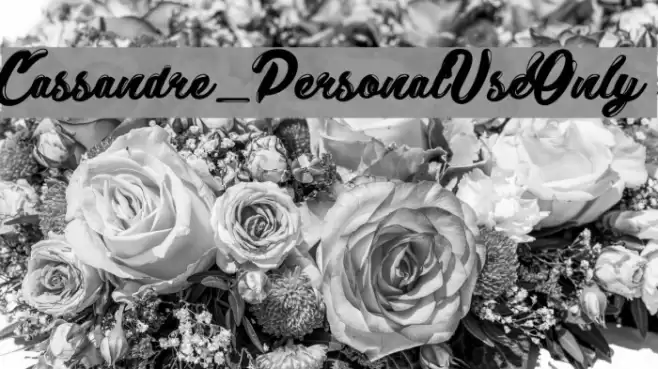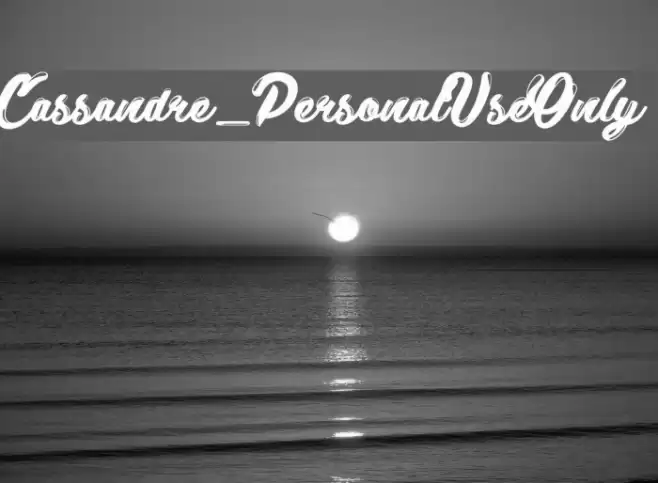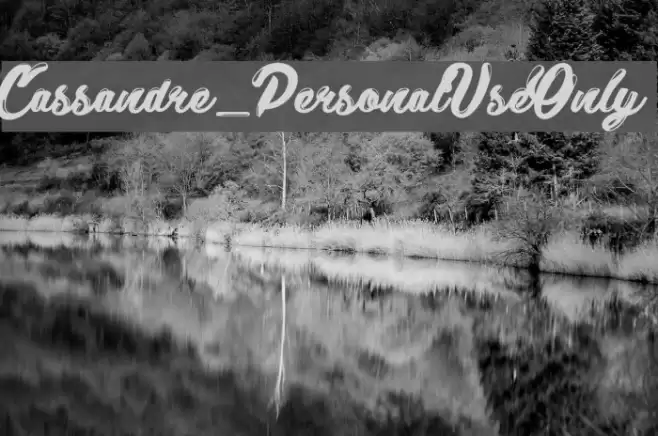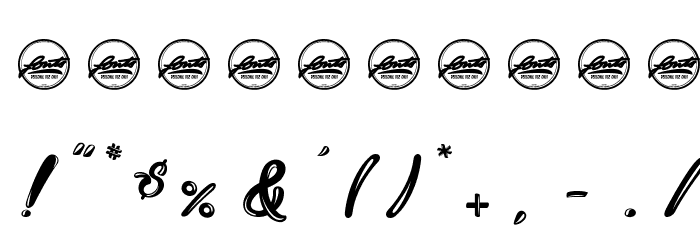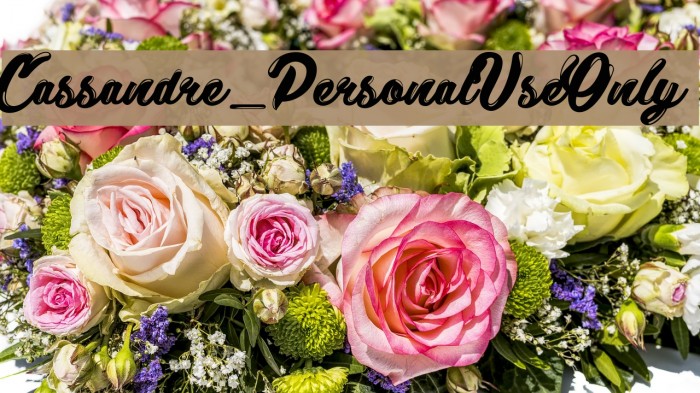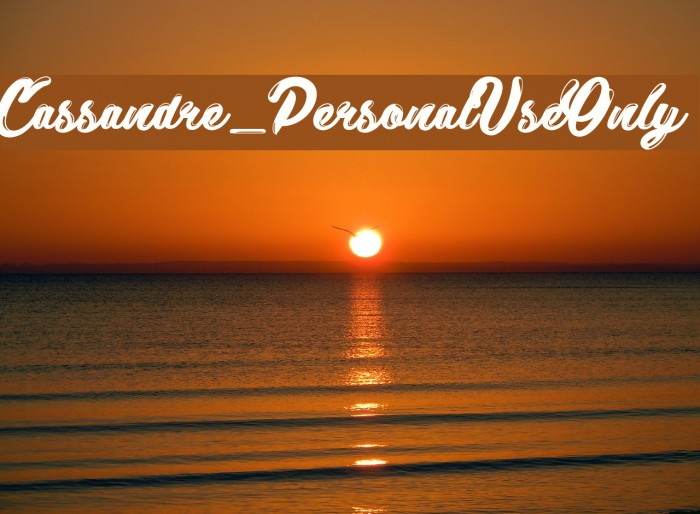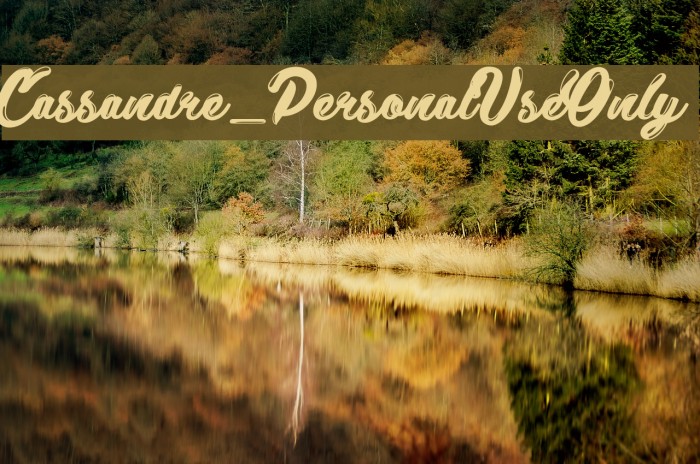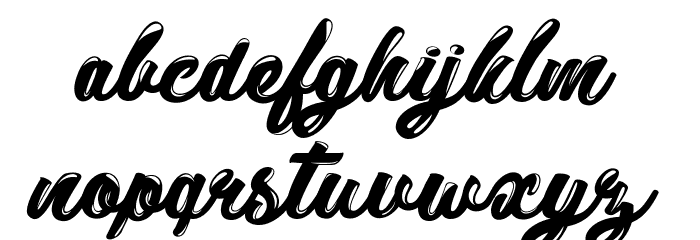
Cassandre_PersonalUseOnly Font
Cassandre_PersonalUseOnly Description
This font features a bold, cursive style with a strong, flowing script that exudes elegance and sophistication. The letters are interconnected with smooth transitions, creating a seamless and dynamic appearance. The uppercase letters are slightly larger and more pronounced, while the lowercase letters maintain a consistent flow. The font includes a variety of special characters, enhancing its versatility for creative projects. Its bold strokes and high contrast make it stand out, ideal for making a statement in any design.
A bold, cursive script font with elegant, flowing letters from Uncategorized fonts.
- Proposed Projects: Ideal for wedding invitations, branding, logos, and elegant signage.
- Overall Style: Elegant
- Use Case: Logos, Headlines, Invitations